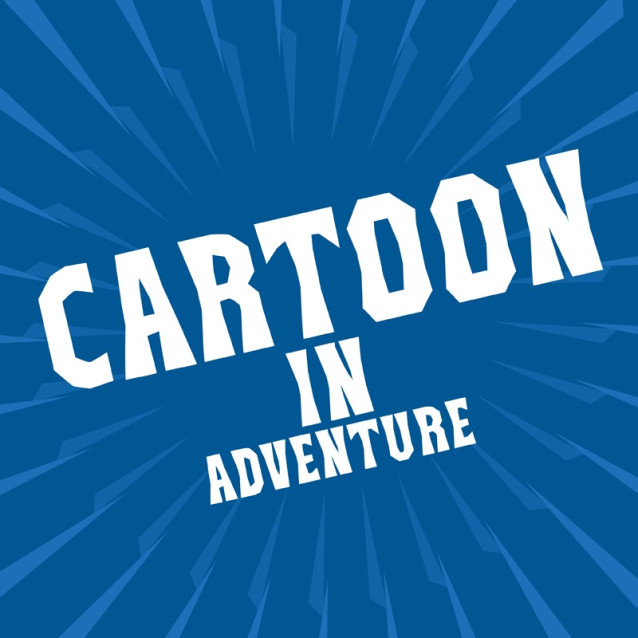
Cartoon in Adventure Font
Cartoon in Adventure Font is a simple and modern display font suitable for quotes, logos, headings, titles, and many more. Use it on any of your creative projects, and your designs will become outstanding!